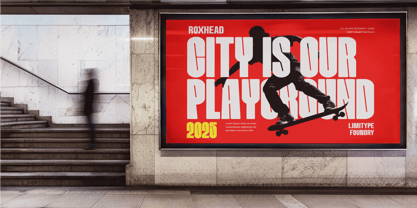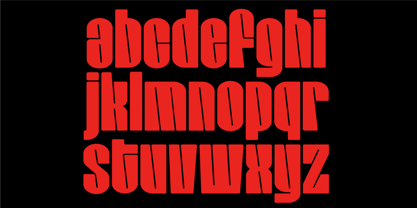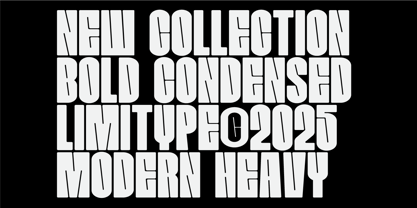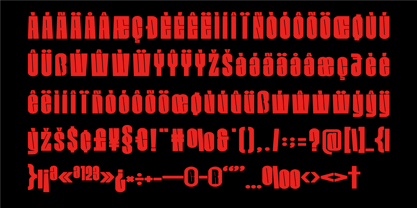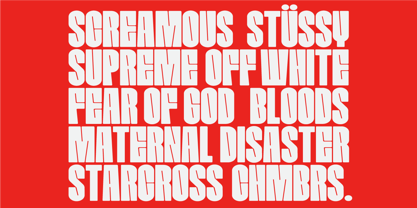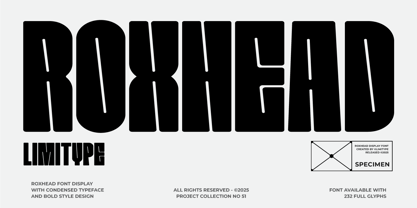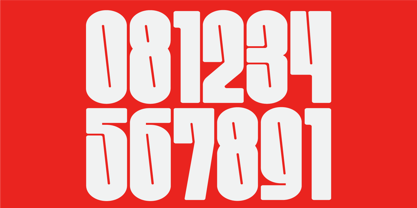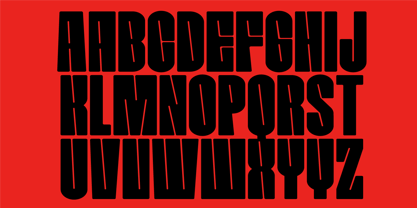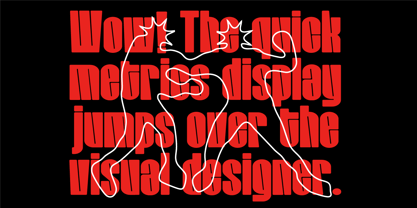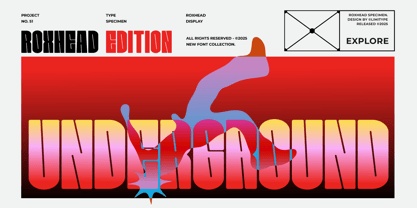
Roxhead
The Roxhead Font Family was designed by Muhammad Muammar, Furqan Sudirman and published by limitype. Roxhead contains 1 styles. More about this family
Roxhead is a contemporary urban typeface with a condensed style and distinctive small counter details that convey a bold, strong, and characterful impression. Its unique design makes Roxhead highly versatile for various needs, from powerful headlines and striking posters to modern magazine layouts and stylish merchandise branding. With its signature urban touch, Roxhead brings a sense of modernity, confidence, and creativity to any visual project that aims to stand out with bold expression.
Roxhead available with:
- Uppercase
- Lowercase
- Number
- Symbol
- Multilingual